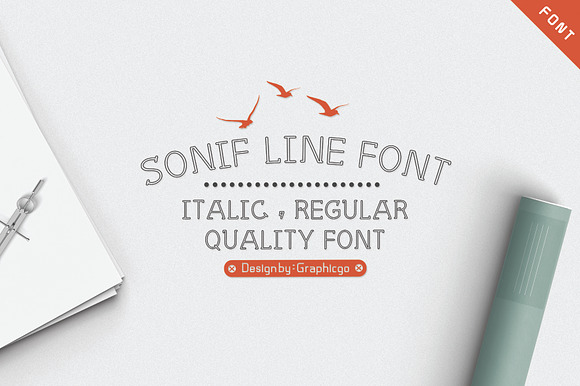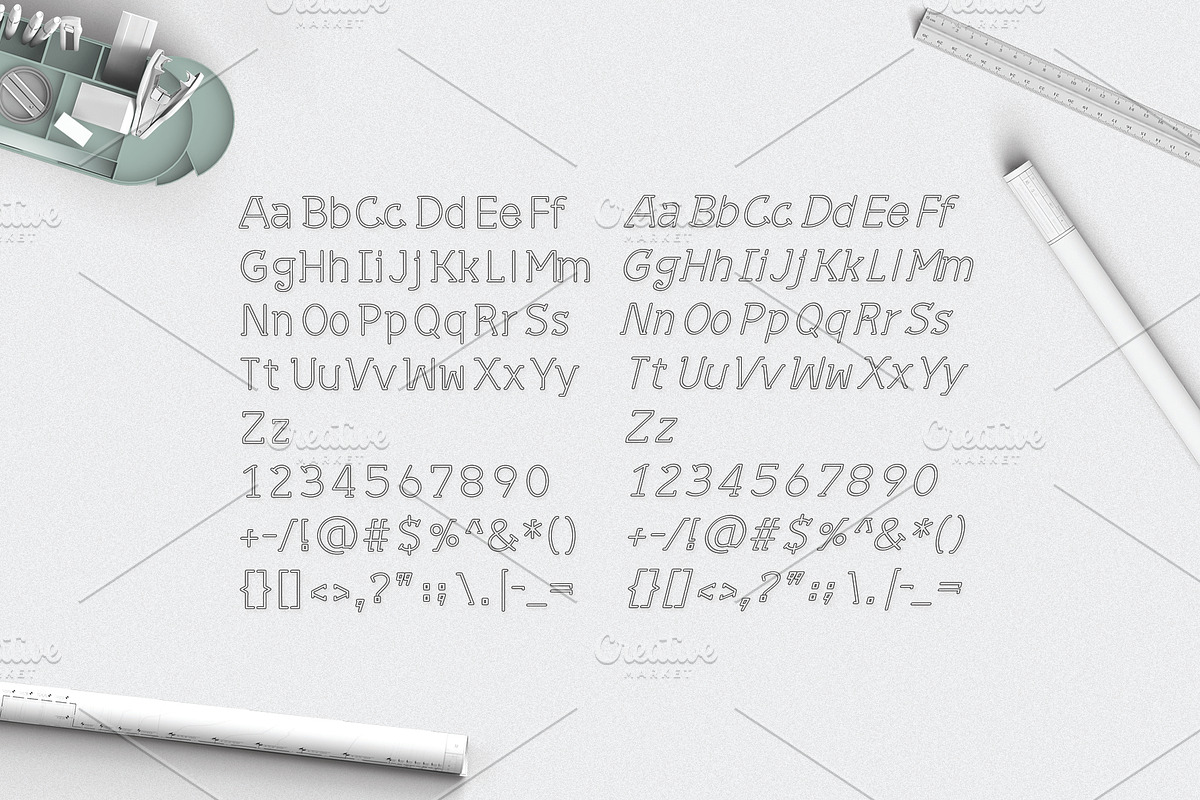
Sonif Line Font
Sonif Line Font is clean line writing style. It 's perfect for any products, cards, posters, wall art, branding, diy projects, greeting cards, labels, quotes, packaging, websites and much more.
Uppercase and Lowercase
Why Sonif Line Font is worth a look
Sonif Line Font by Graphicgo fits naturally into Branding, posters, packaging, typography.